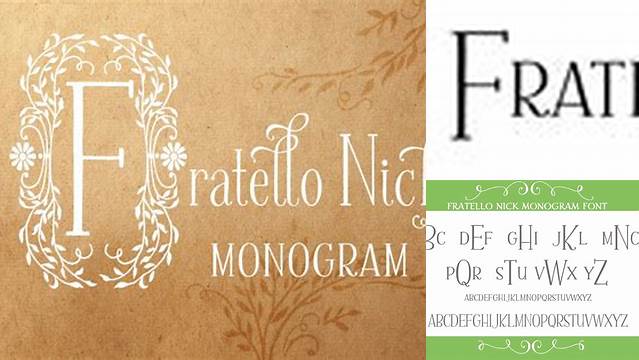
Fratello Nick Font: Free Download Guide For Elegant Designs
Fratello Nick monogram font has become a favorite for designers and creatives alike, offering a unique blend of classic elegance and modern flair. If you're on the hunt for a font that can add a touch of sophistication to your projects, you've come to the right place. In this guide, we'll delve into everything you need to know about Fratello Nick, including its features, uses, and, most importantly, where to find free downloads. Whether you're a seasoned designer or just starting, understanding the nuances of this font will help you make the most of it in your creative endeavors. So, let's dive in and explore the world of Fratello Nick!
Fratello Nick monogram font is a beautifully crafted typeface known for its elegant and decorative letterforms. It's specifically designed to create stunning monograms, logos, and other personalized designs. The font features intricate swirls, loops, and serifs that give it a distinctive and luxurious appearance. Its unique style makes it perfect for a wide range of applications, from wedding invitations and branding materials to signage and apparel. The Fratello Nick font family often includes multiple weights and styles, allowing designers to mix and match elements for a truly customized look. This versatility is one of the key reasons why it has gained popularity among designers and creatives. The font's sophisticated aesthetic makes it an excellent choice for projects that require a touch of class and refinement. When choosing a font for your next project, consider how Fratello Nick's unique characteristics can enhance your design and capture the essence of your message. Its decorative nature can elevate a simple design to something truly special, making it a valuable asset in any designer's toolkit.
When you're looking for a standout font, Fratello Nick truly delivers with its unique features and characteristics. One of the most notable aspects is its elegant and decorative letterforms, which are perfect for creating monograms that exude sophistication. Each character is meticulously designed with intricate swirls and loops, giving it a luxurious and premium feel. The font often includes multiple weights and styles, such as regular, bold, and italic, providing versatility for different design needs. This means you can use it for both headings and body text, ensuring a cohesive look across your project. The high level of detail in each letter makes Fratello Nick particularly well-suited for projects where you want to make a statement. Whether it’s for a wedding invitation, a business logo, or a personal brand, this font adds a touch of class that's hard to ignore. Another key feature is its legibility, despite its decorative nature. The letters are designed to be easily readable, making it a practical choice for various applications. This balance between style and functionality is what sets Fratello Nick apart from other monogram fonts. The font also supports a wide range of characters and glyphs, allowing for extensive customization and creative possibilities. You can mix and match different styles and weights to create unique monograms and logos that perfectly reflect your vision. All these features combine to make Fratello Nick a versatile and valuable asset for any designer or creative professional looking to add a touch of elegance to their work.
The Fratello Nick font is incredibly versatile, making it suitable for a wide array of design projects. One of the most popular uses is in wedding invitations. Its elegant and decorative style adds a touch of romance and sophistication, perfect for setting the tone for a special day. Imagine the beautiful monograms and headings you can create, instantly elevating the overall aesthetic. Beyond weddings, this font shines in branding materials. If you're looking to create a logo that exudes luxury and class, Fratello Nick is an excellent choice. Its unique letterforms make any brand stand out, whether it's for a high-end boutique, a personal brand, or a sophisticated event. The font also works wonderfully for stationery design, including business cards, letterheads, and thank you notes. The touch of elegance it adds can make a lasting impression, helping you communicate professionalism and style. Furthermore, Fratello Nick is perfect for signage and displays. Its distinctive appearance ensures that your message is not only read but also remembered. Whether it's for a store sign, an event banner, or a promotional display, this font can capture attention and convey a sense of quality. In addition to these commercial applications, Fratello Nick is great for personal projects. Think about using it for personalized gifts, custom artwork, or even social media graphics. Its versatility allows you to express your creativity in countless ways, making it a valuable addition to your font library. So, whether you're a professional designer or a hobbyist, Fratello Nick is a font that can truly enhance your projects and bring your vision to life.
To truly maximize the impact of the Fratello Nick font in your designs, it's important to use it strategically. Given its elegant and decorative nature, Fratello Nick shines best when used sparingly and in key areas where you want to draw attention. For instance, it's perfect for headings and titles, where its unique letterforms can make a strong visual statement. Using it for the main headlines of a website, a poster, or a brochure can instantly elevate the overall design. When it comes to monograms and logos, Fratello Nick is an exceptional choice. Its intricate swirls and loops lend themselves beautifully to creating memorable and sophisticated marks. Experiment with different letter combinations and spacing to achieve a unique and personalized look that represents your brand or project. Pairing Fratello Nick with other fonts is another crucial aspect to consider. Because of its ornate style, it's often best to pair it with a simpler, more legible font for body text. A clean sans-serif font like Arial or Helvetica, or a classic serif font like Times New Roman, can provide a nice contrast and ensure readability. The key is to create a balance between the decorative elements of Fratello Nick and the functional aspects of your design. Think about the color palette you use with Fratello Nick. Its elegance is often enhanced by using sophisticated and muted colors. Gold, silver, navy, and deep greens can complement the font’s luxurious feel. However, don’t be afraid to experiment with brighter colors if they align with your overall design concept. Consider the spacing and kerning when working with Fratello Nick. Adjusting the space between letters can significantly impact the font’s appearance. Tightening the kerning can create a more compact and cohesive look, while increasing the spacing can give the letters room to breathe and make a bolder statement. Finally, think about the overall context of your design. Fratello Nick is particularly well-suited for projects that aim to convey elegance, sophistication, and luxury. Whether it’s for wedding invitations, branding materials, or high-end marketing collateral, using Fratello Nick thoughtfully can add a touch of class and make your designs truly stand out.